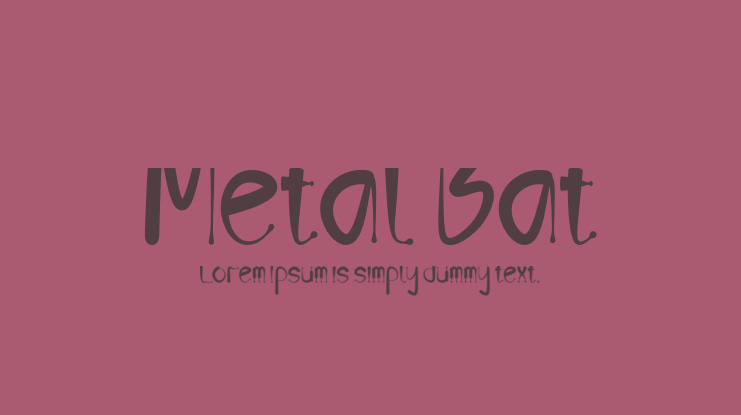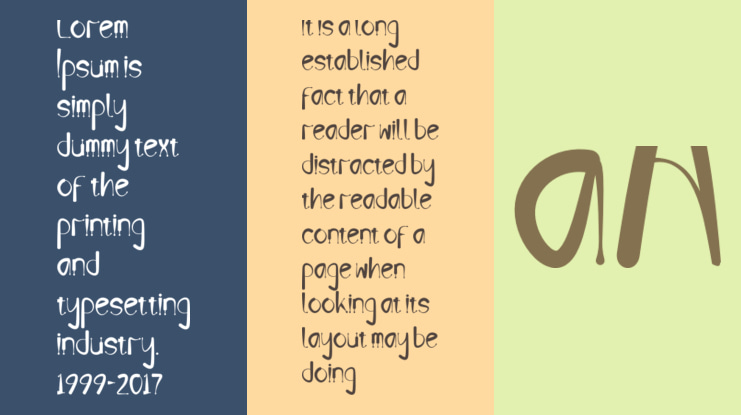
Metal Bat Font
Metal Bat is a cool looking and unique display font. This original look will appeal to a wide range of crafty ideas, from letterheads and titles, to stationery.